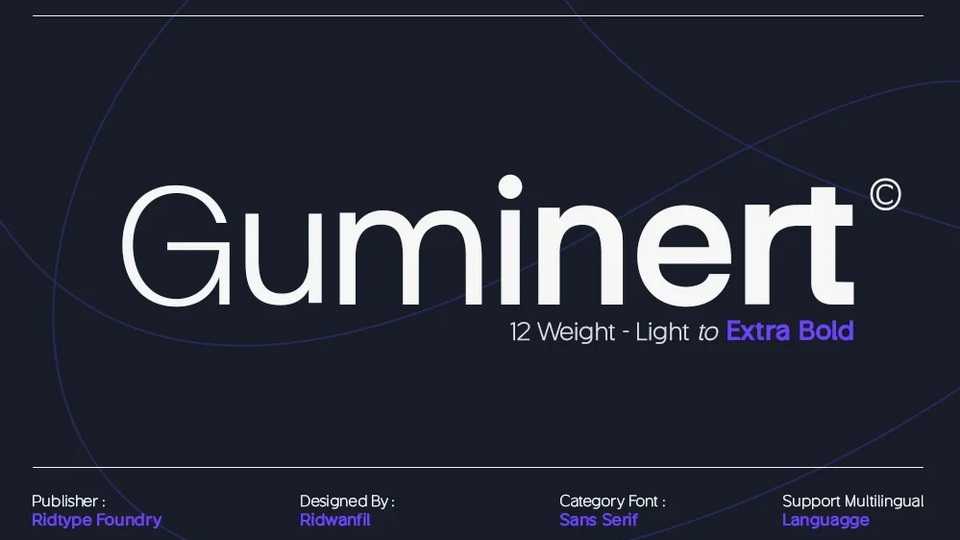
Download Guminert font, a sans serif typeface inspired by masculine man. Guminert font best for use in small and large projects such as: custom logotypes, project branding, packaging design, advertising, project printing, etc.
Designer: Ridwan Fadilah